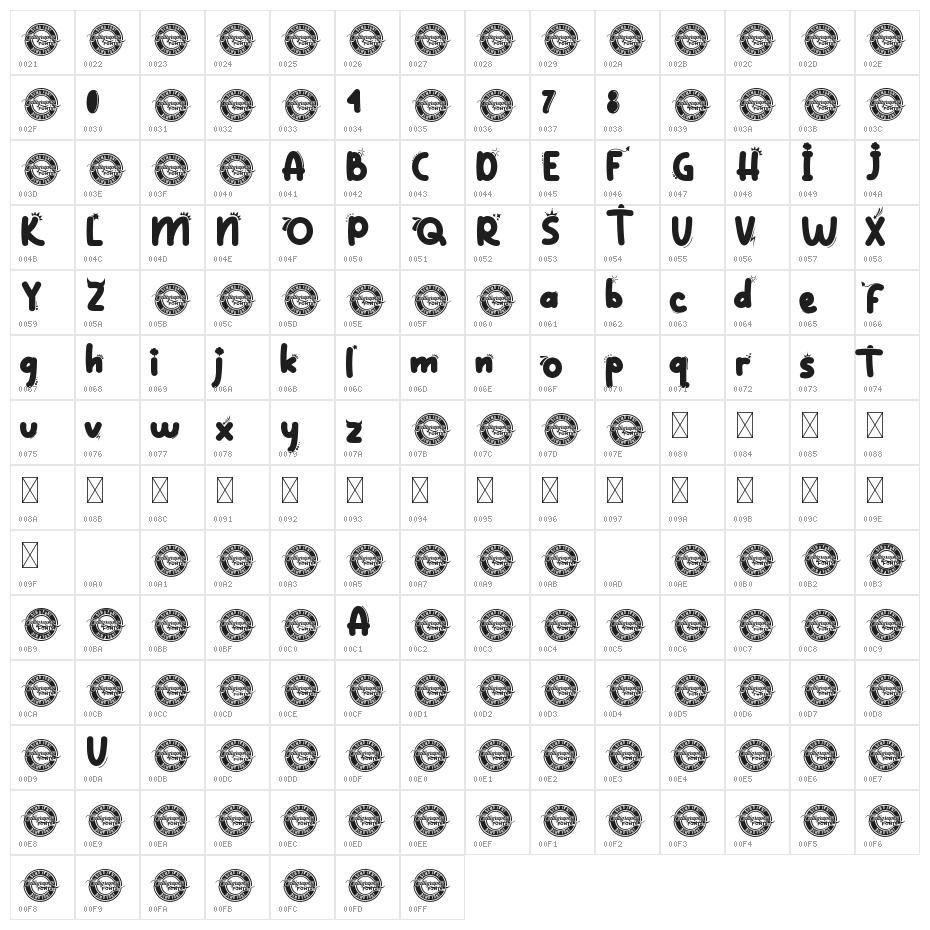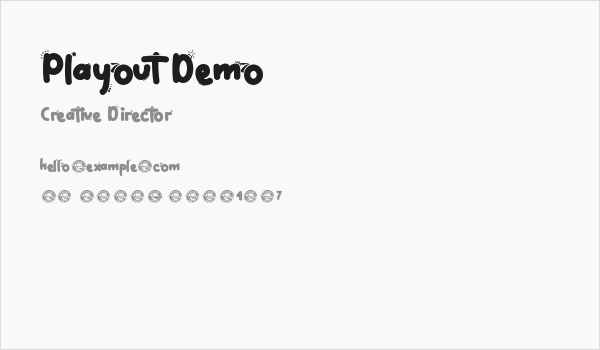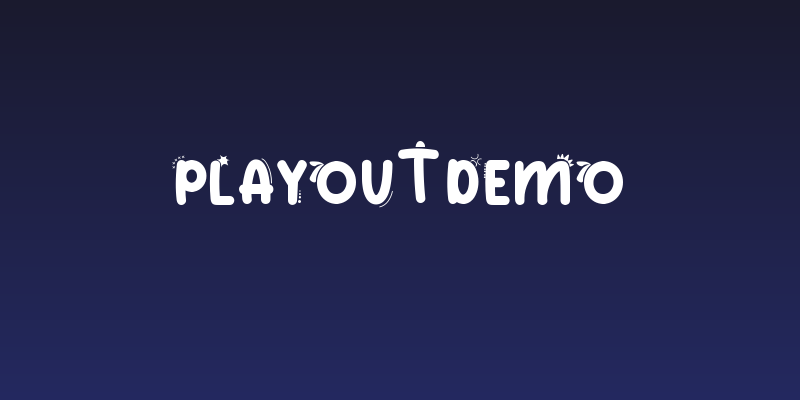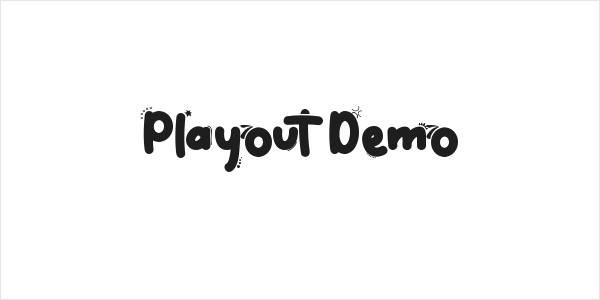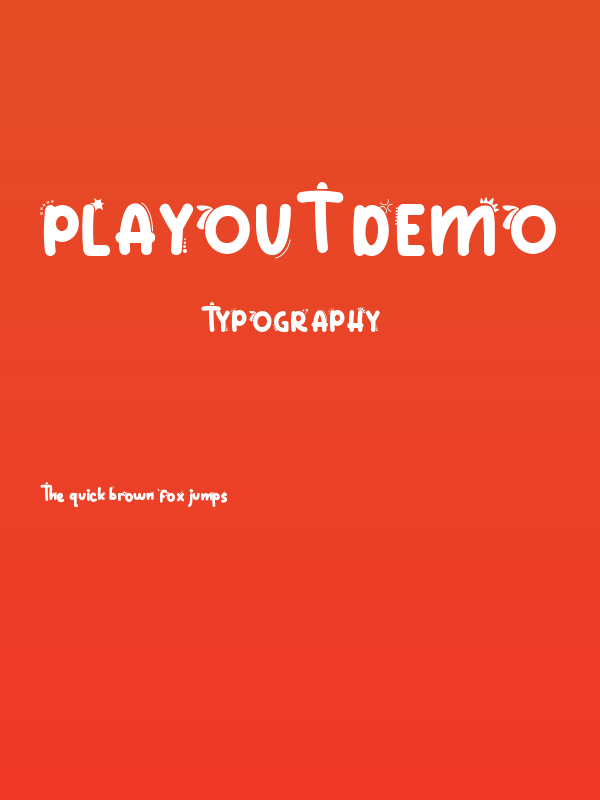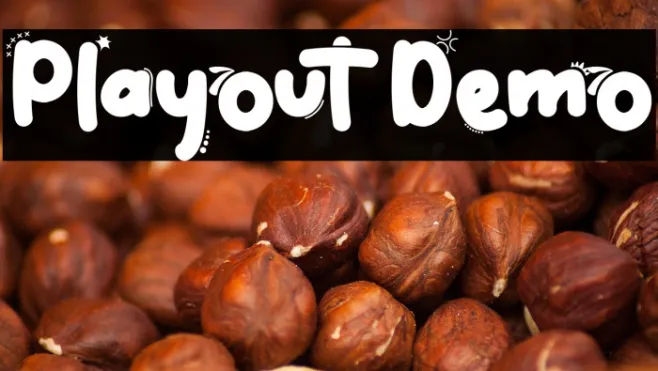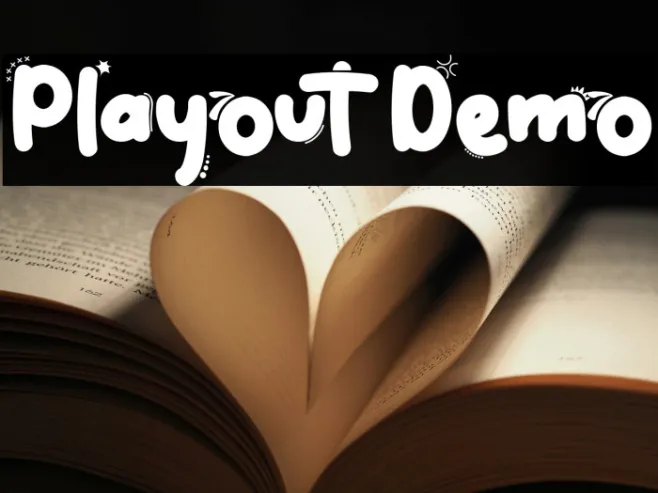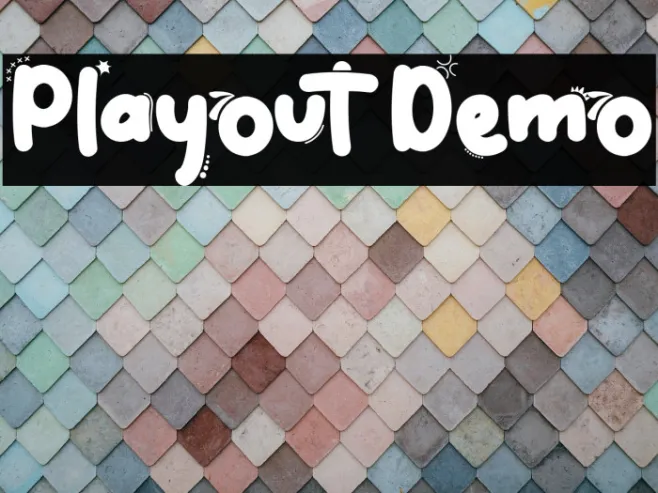
Playout Demo Font
Playout Demo Description
This playful and whimsical font features bold, rounded characters with unique decorative elements such as stars, swirls, and dots that add a sense of fun and creativity. The uppercase and lowercase letters maintain a consistent style, with exaggerated curves and a slightly irregular baseline, giving it a hand-drawn appearance. The numerals and special characters are equally bold and feature similar decorative accents, making them stand out. This font is ideal for projects that require a lively and energetic feel, such as children's books, party invitations, or playful branding.
| Proposed Projects | Children's books, party invitations, playful branding, creative posters. |